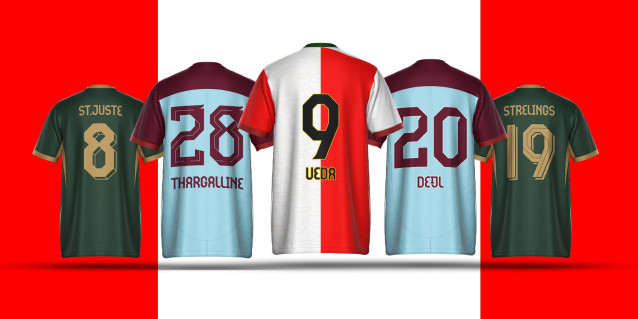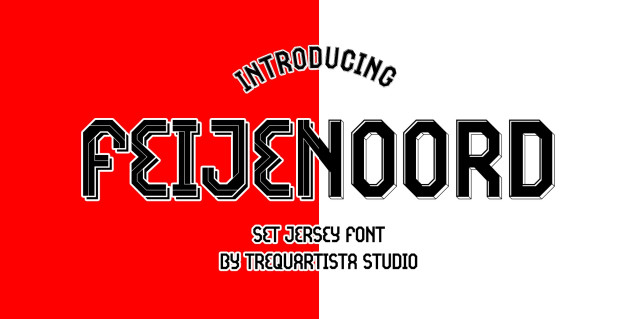
Feijenoord Font
Feijenoord Font is a bold sports display font designed with strength, precision, and attitude. Featuring sharp angles and solid geometric forms, this typeface delivers a powerful, modern, and masculine look.
Inspired by stadium culture and industrial architecture, Feijenoord captures the energy of competition and the spirit of urban design. Each character is carefully crafted with structured shapes and distinctive cuts, creating a dynamic and impactful visual presence.
The font comes with multiple style variations—including regular, inline, carved, extrude, serif, and shadow—offering great versatility for a wide range of creative needs. It is perfect for sports jerseys, team branding, event posters, athletic identities, and any design that requires a strong and commanding appearance.
With its bold personality and flexible styles, Feijenoord is an ideal choice for designs that aim to stand out and convey power and determination.